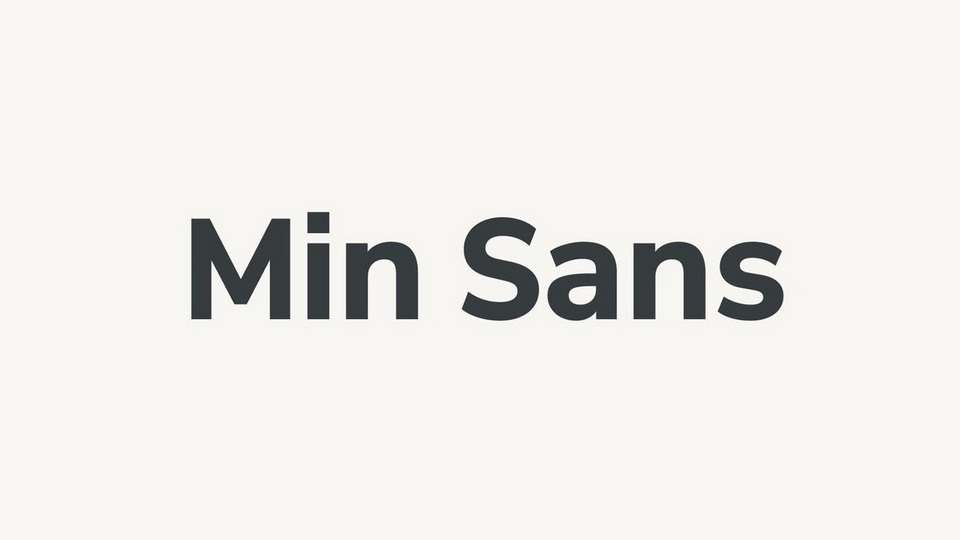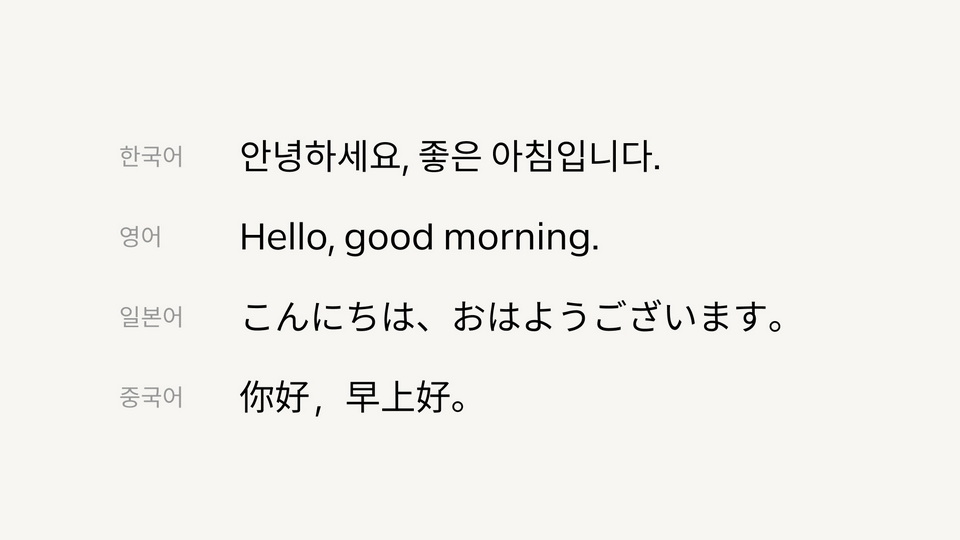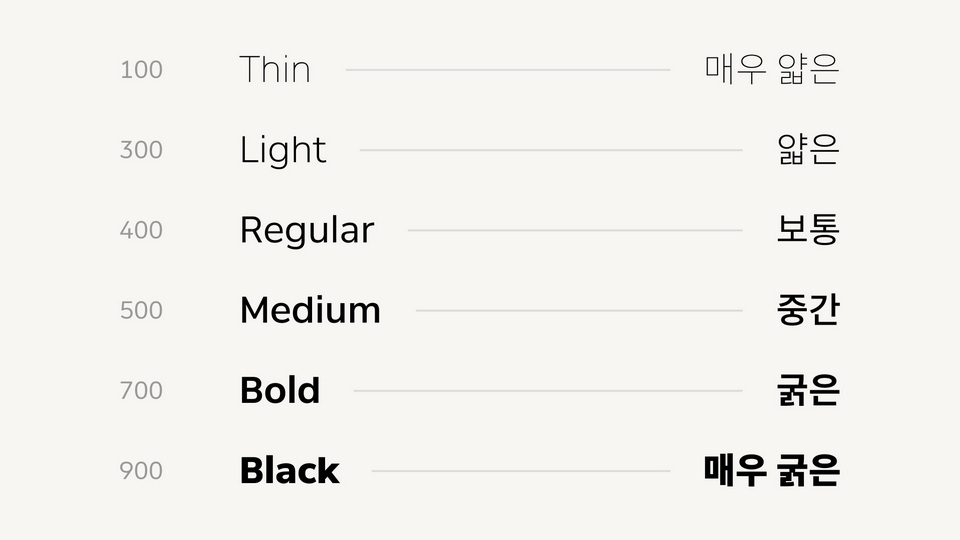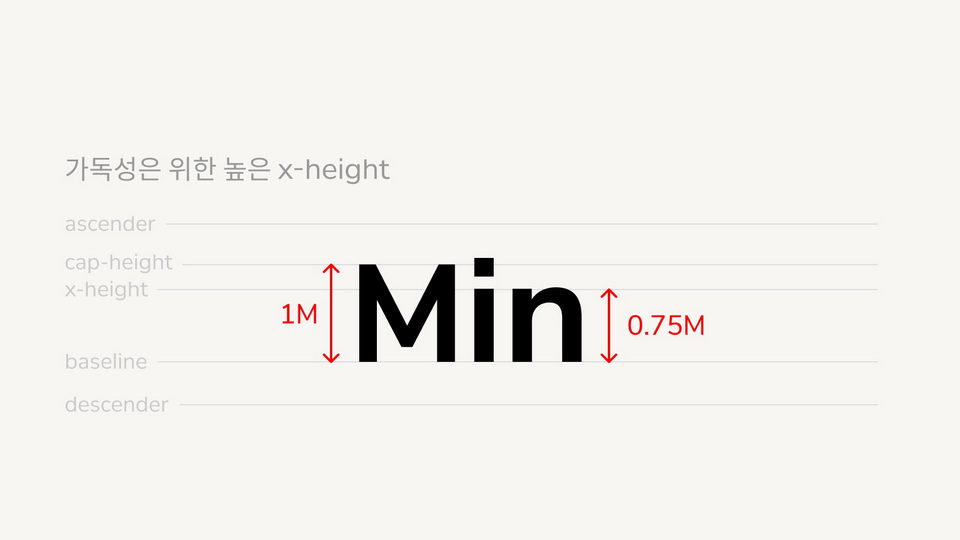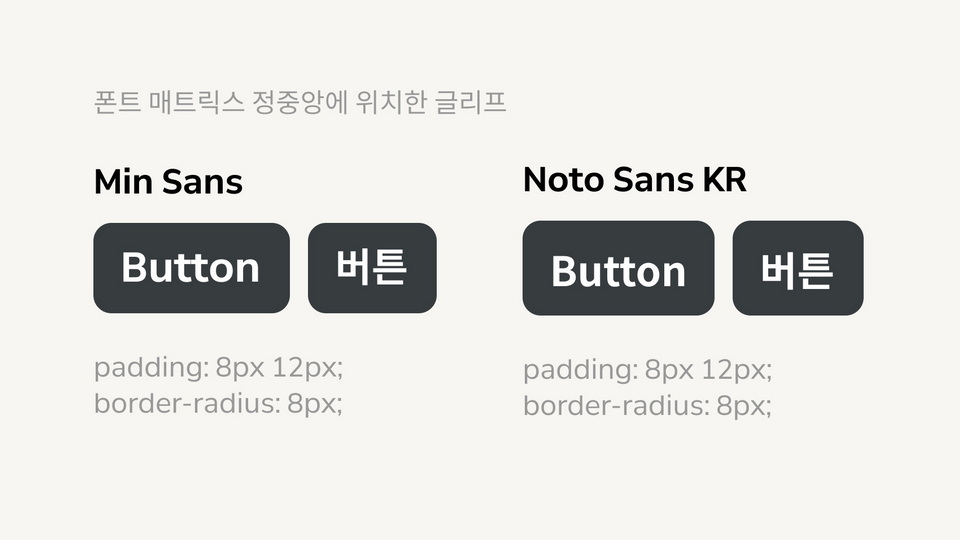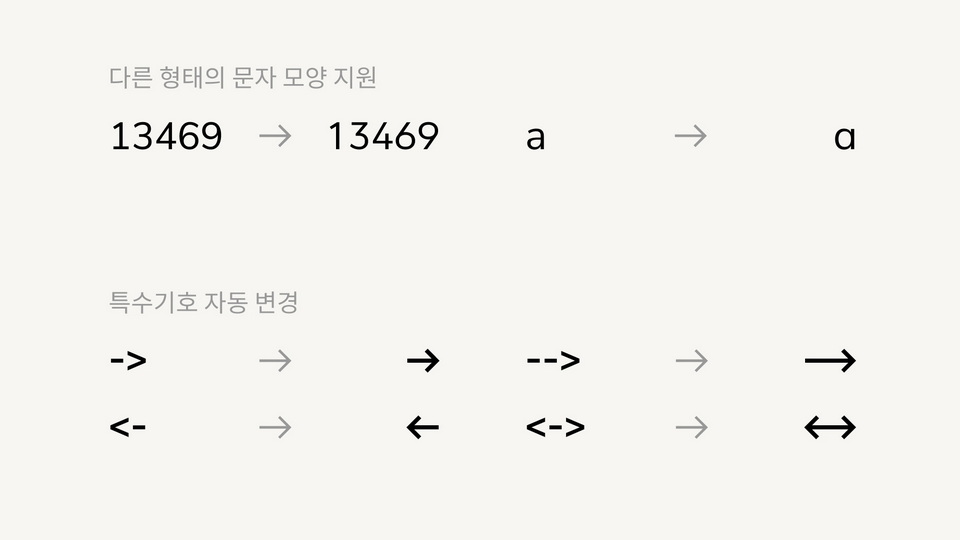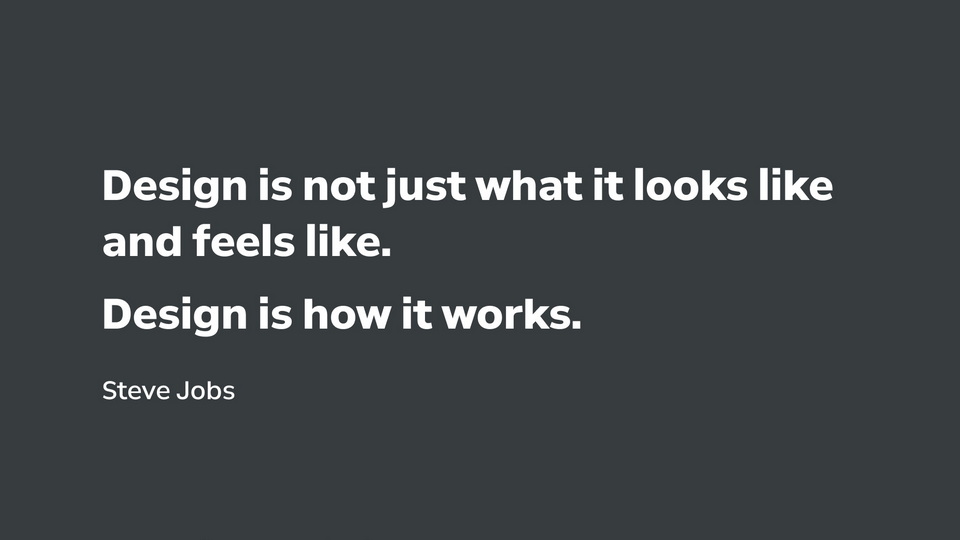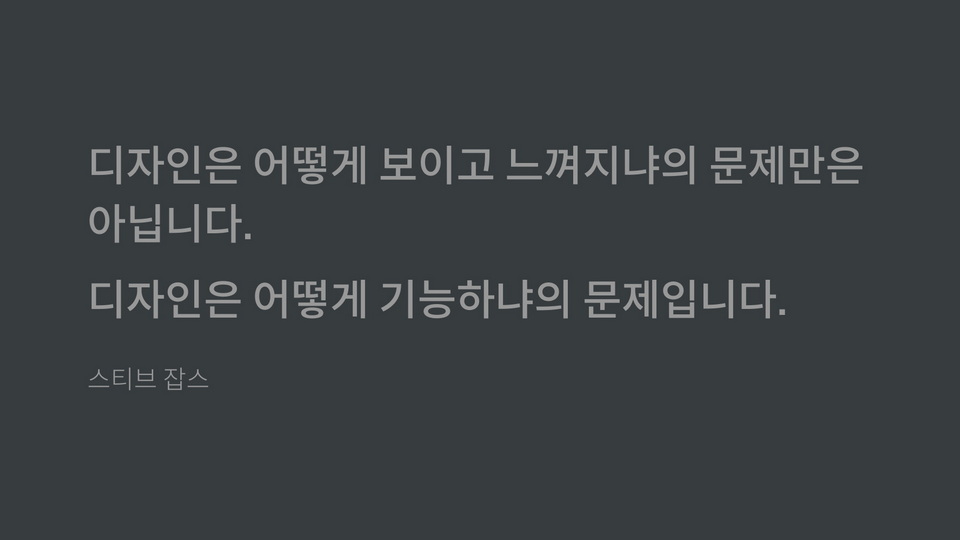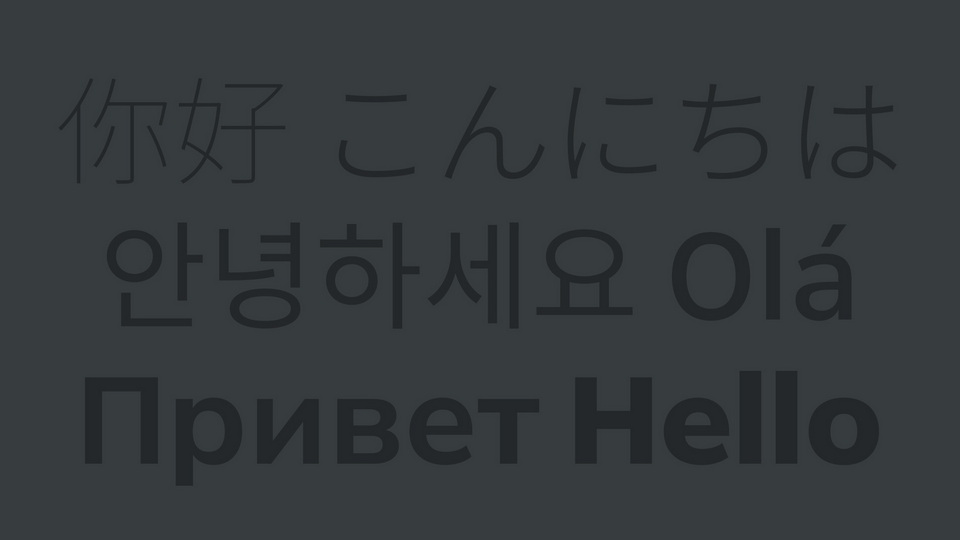
Min Sans is a finely balanced modern sans serif typeface designed to solve the inconvenience of Noto Sans when working on the UI, and is a custom font of Noto Sans and Nunito Sans.
Min Sans were created to configure the product design easily and quickly without any special settings.